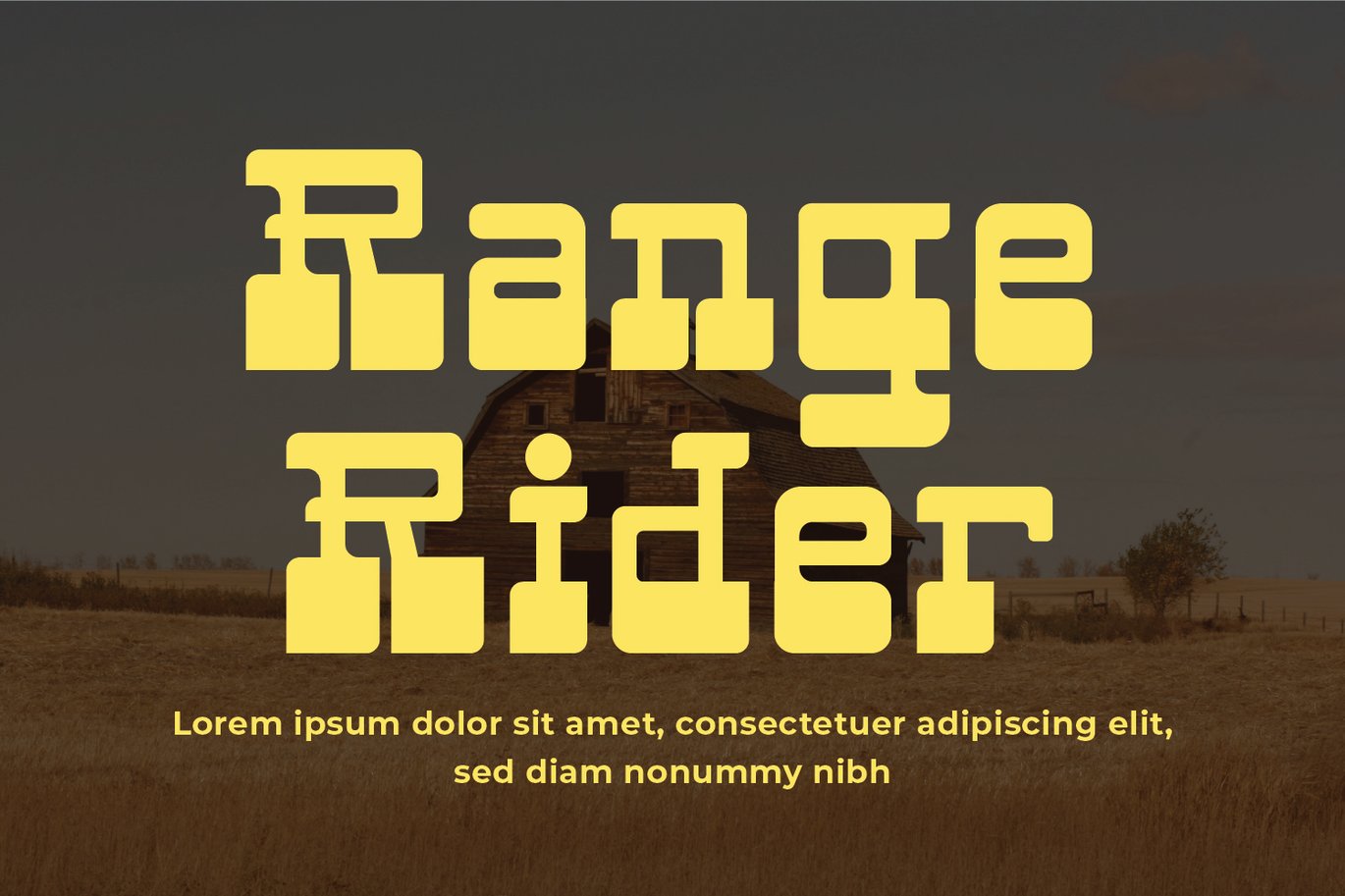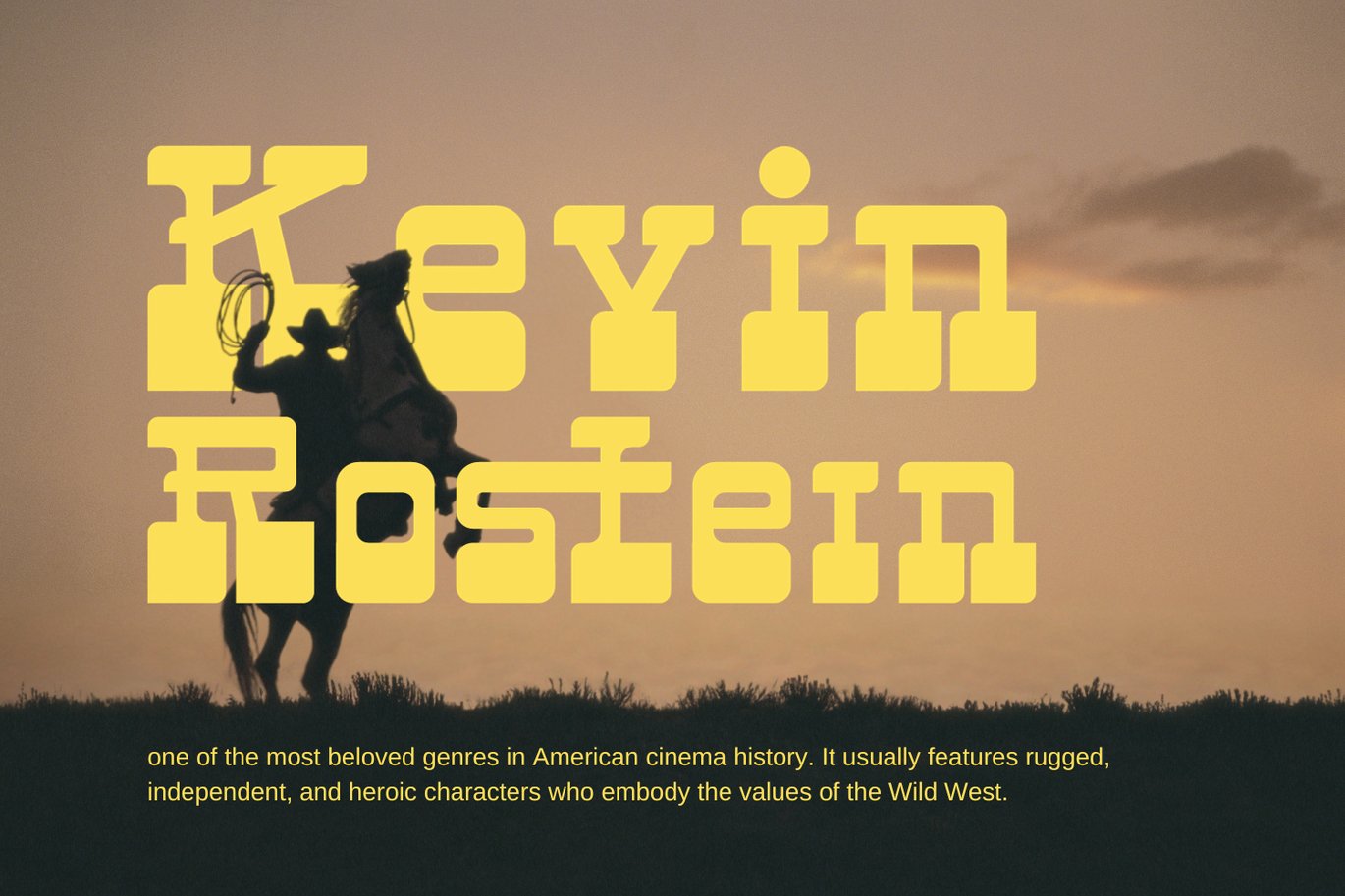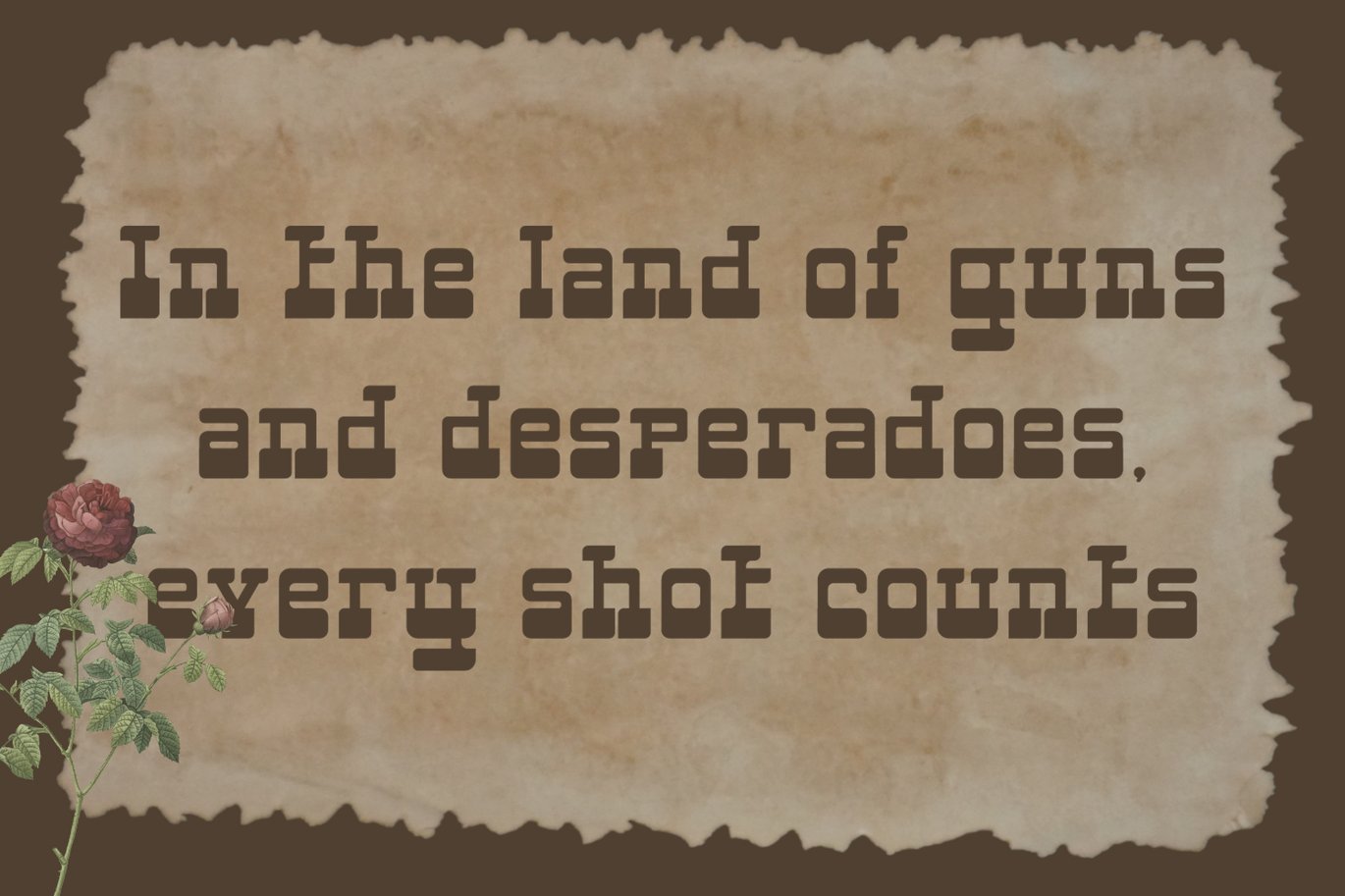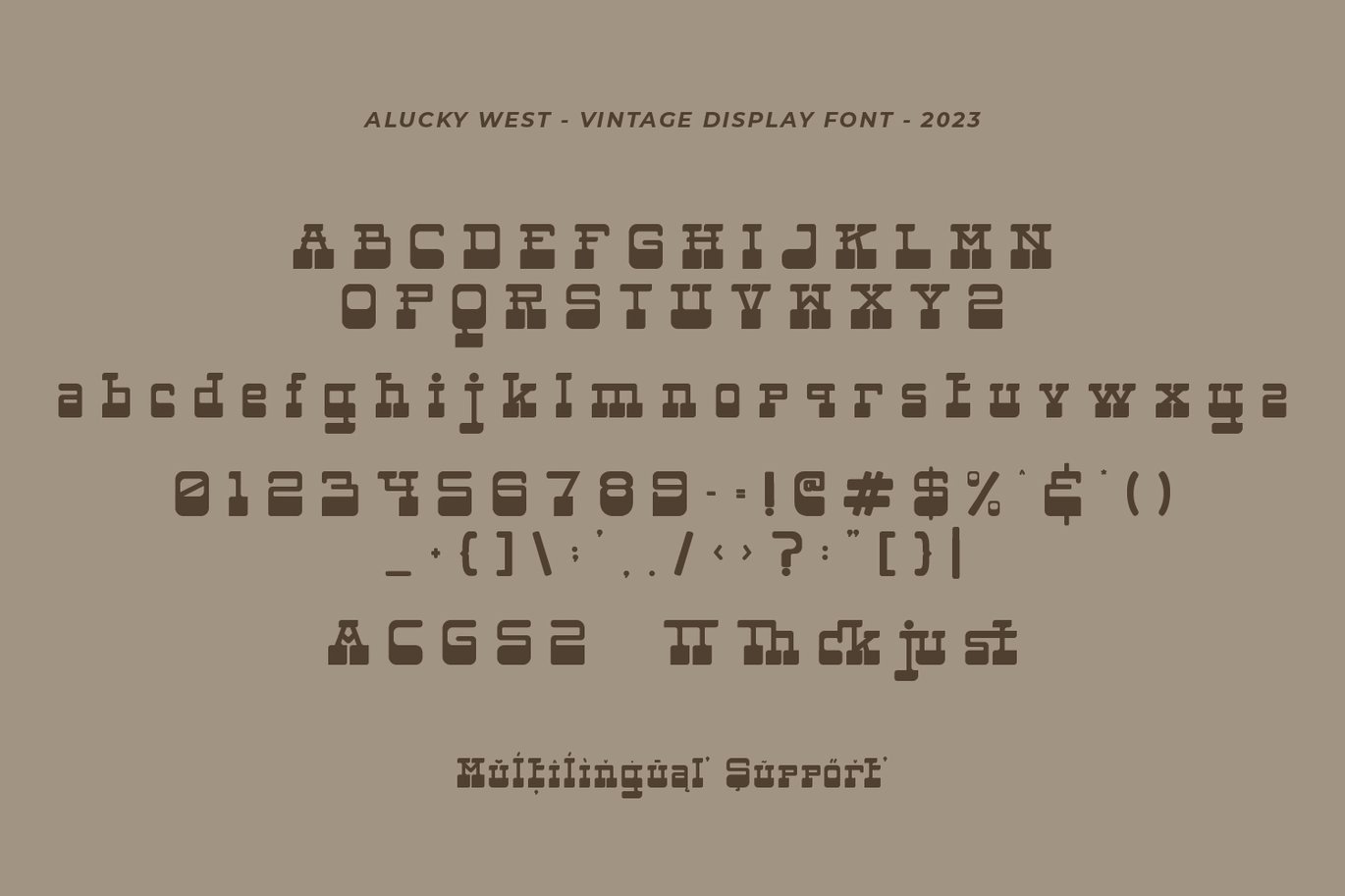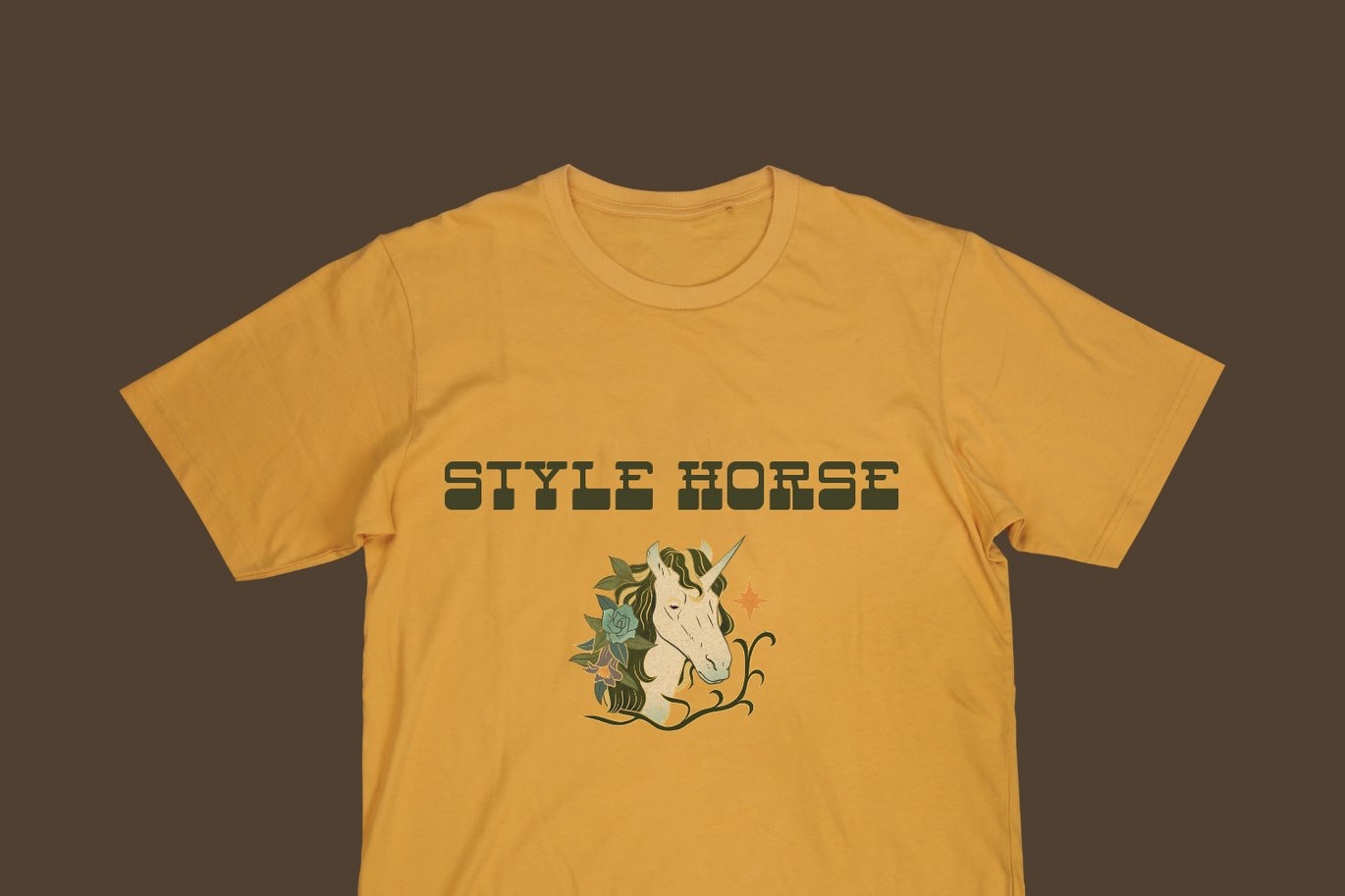
Alucky West – Vintage Display Font
Alucky West – Vintage Display Font with a calligraphy style, So beautiful on invitation like greeting cards, branding materials, business cards, quotes, posters, and more!